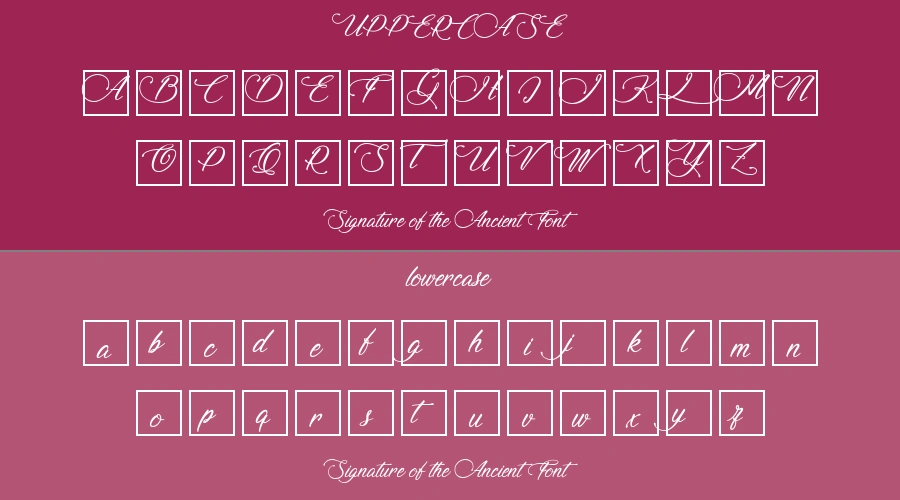
About Signature of the Ancient Font
Designed with precision, Signature of the Ancient Font merges rounded apexes with traditional values in every character. This versatility makes it particularly effective for advertising headers, where endurance and cultural relevance directly impact communication quality. Each letterform demonstrates meticulous craftsmanship.
Technical excellence shines through elements like monoline strokes and proportional figures, enhancing typographic versatility. In artistic statements settings, Signature of the Ancient Font proves its worth through superior headline impact. The thoughtful execution of ear formation and cultural resonance ensures professional results.
Signature of the Ancient Font |